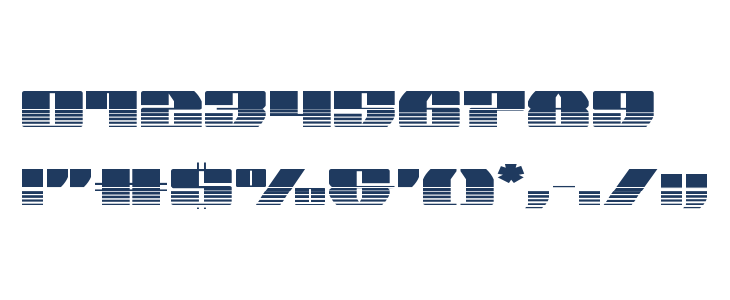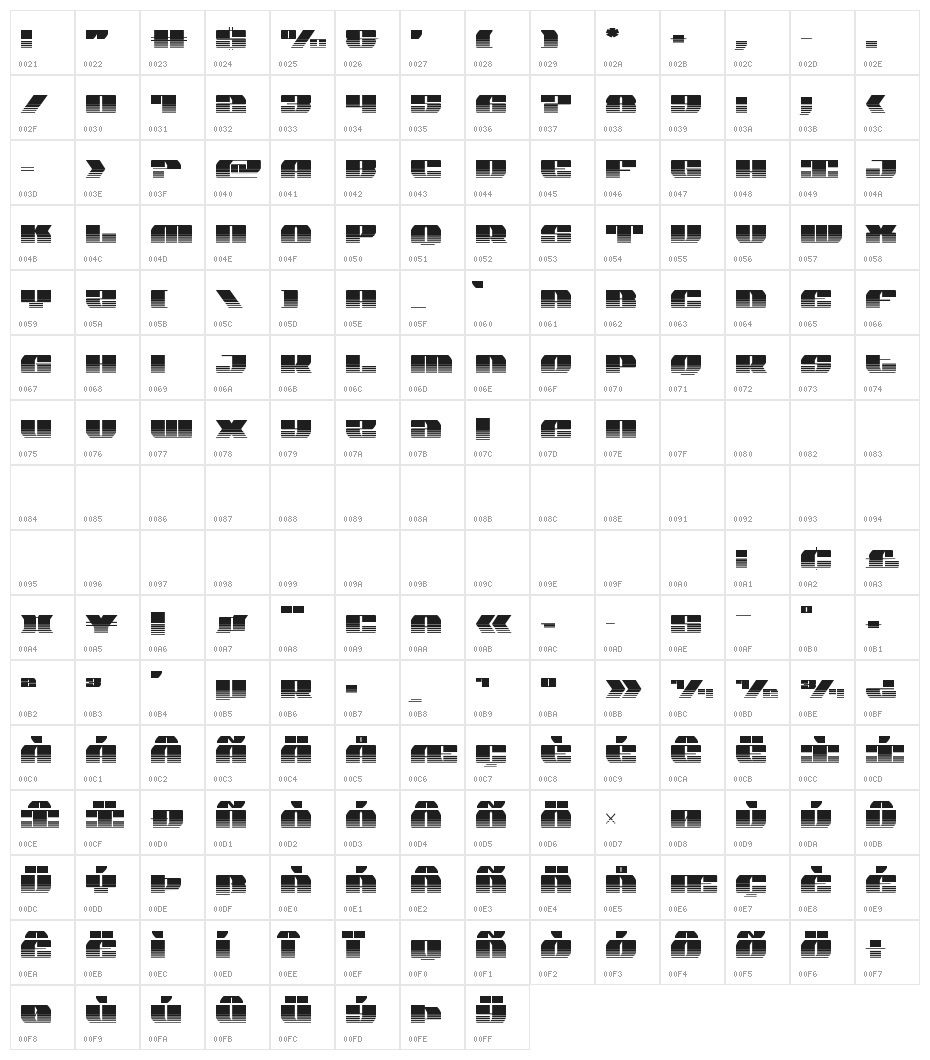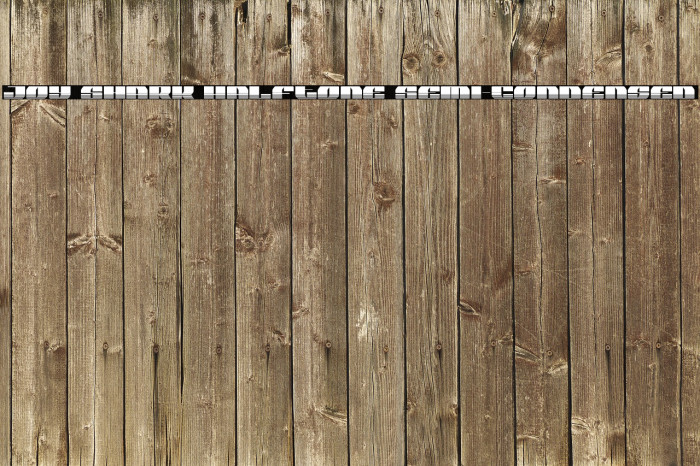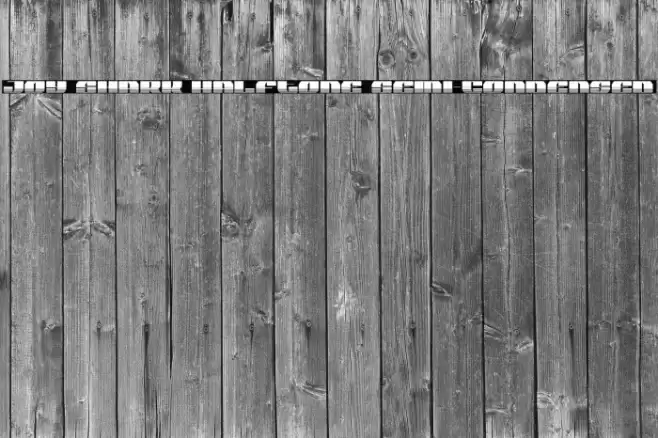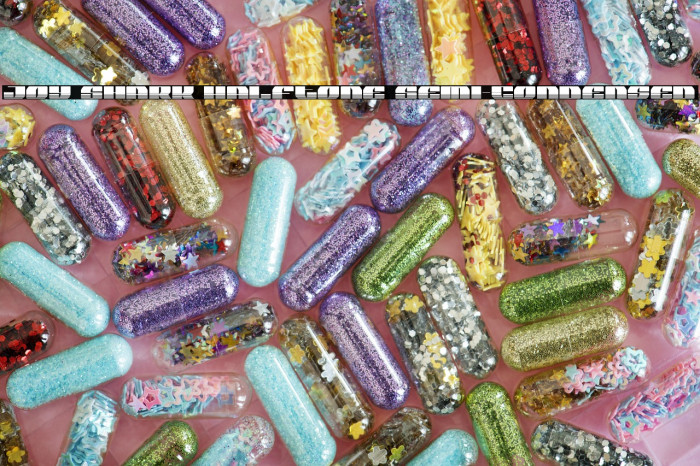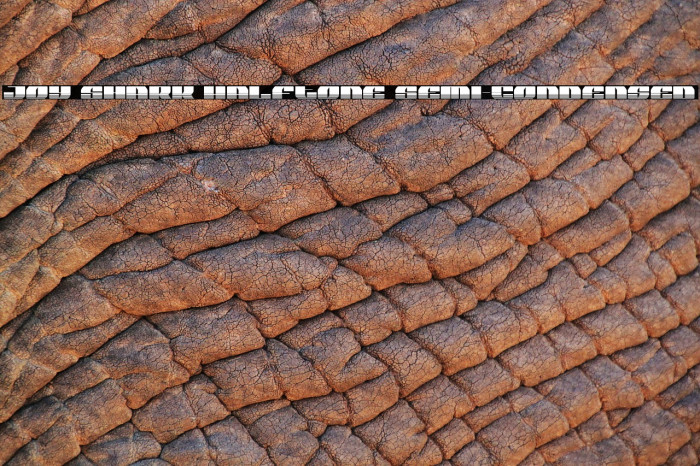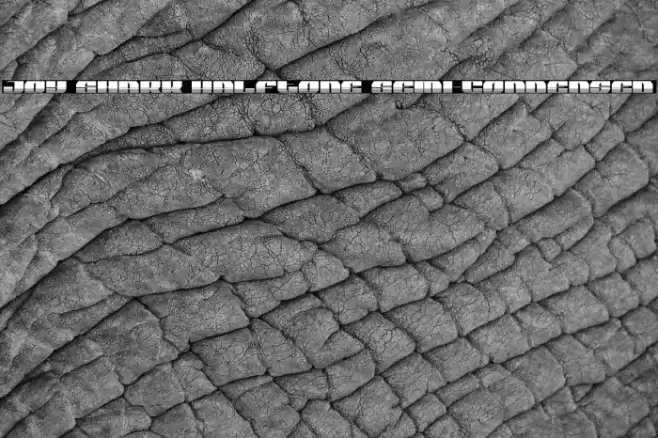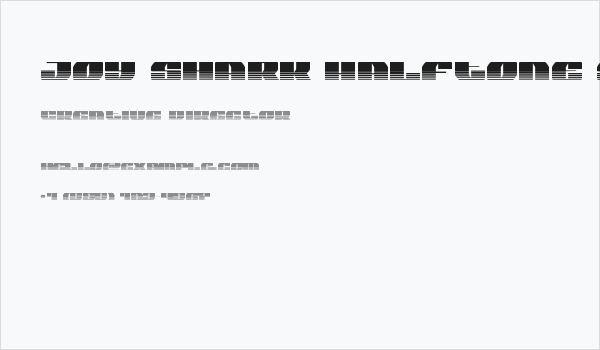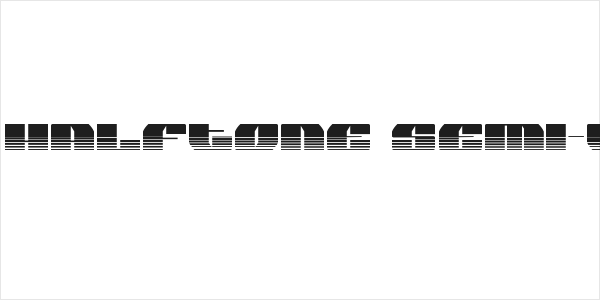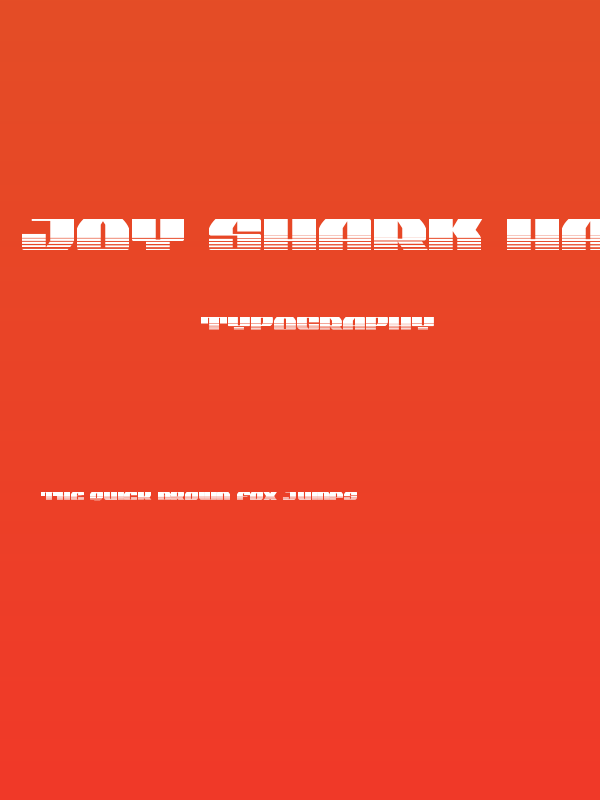
Joy Shark Halftone Semi-Condensed Font
Joy Shark Halftone Semi-Condensed Description
This font features a bold, semi-condensed style with a unique halftone effect that gives it a modern and edgy appearance. The characters are constructed with horizontal lines that create a sense of movement and dynamism. The uppercase and lowercase letters maintain a consistent width, contributing to a cohesive look. The numerals and special characters follow the same design principles, ensuring uniformity across all glyphs. This font's distinctive style makes it suitable for projects that require a strong visual impact.